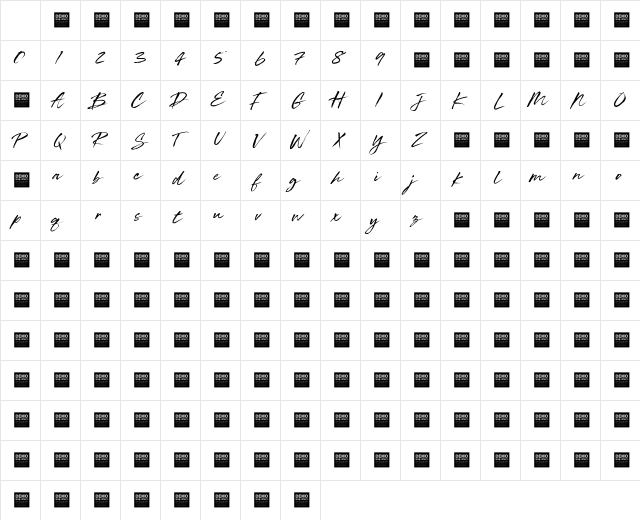
Complete Short Circuit - Demo Regular glyph index. Displaying only characters natively supported by Short Circuit - Demo Regular font.
Short Circuit - Demo is a composed and adaptable typeface that performs quietly and consistently across a wide range of design contexts.
Who designed the Short Circuit - Demo Regular font?